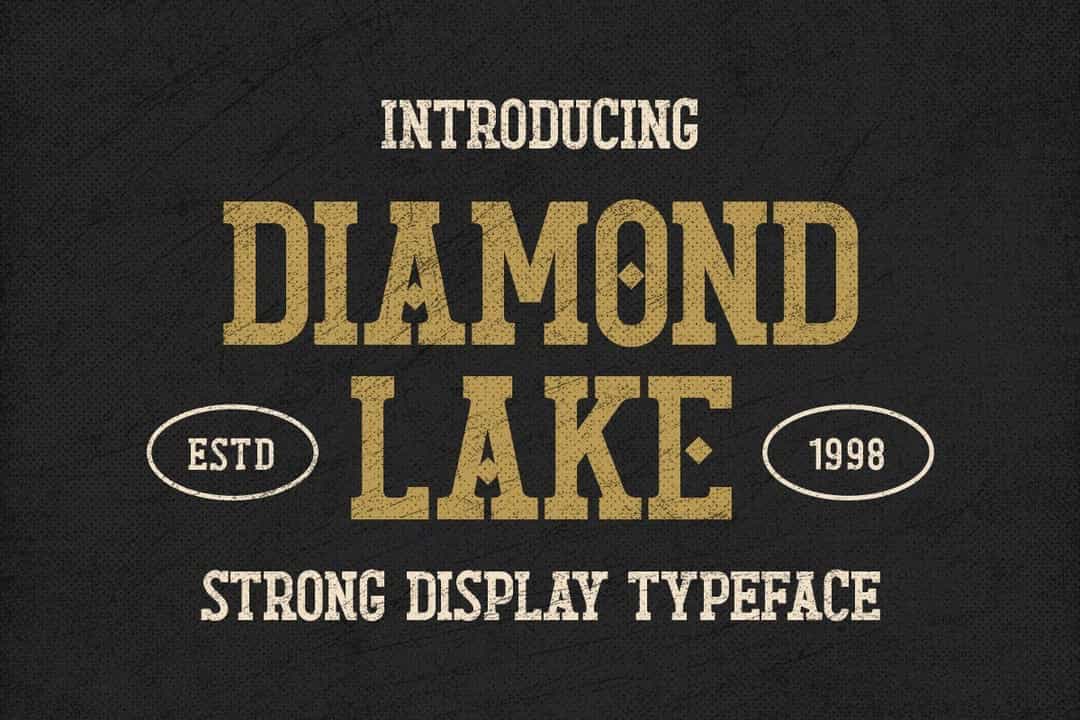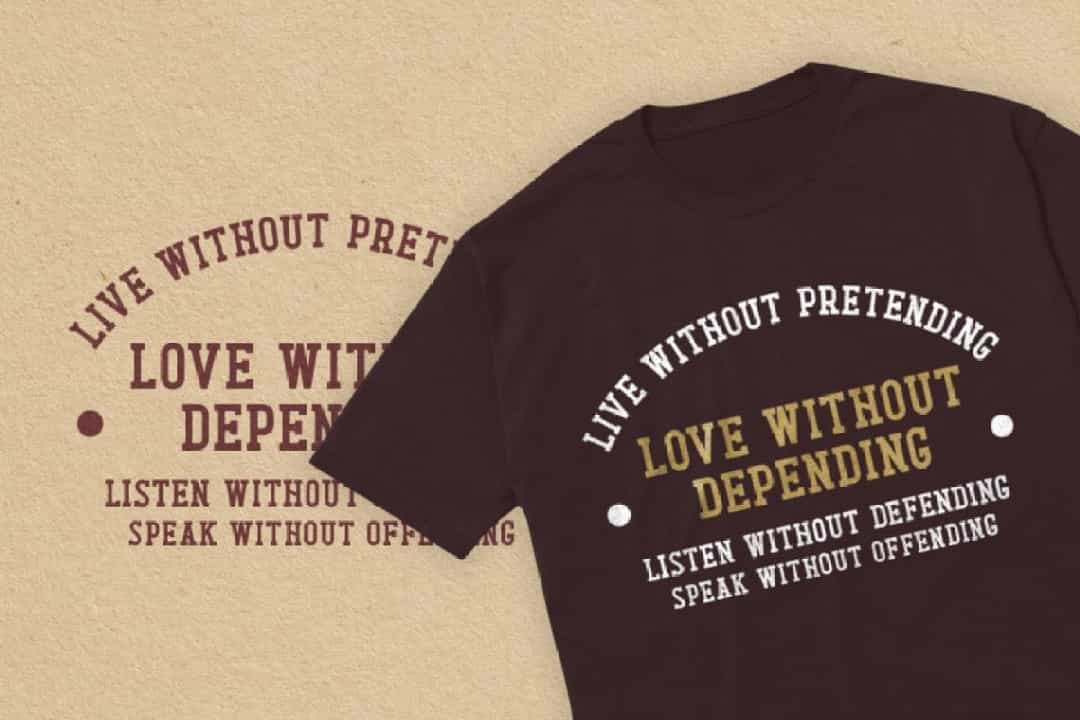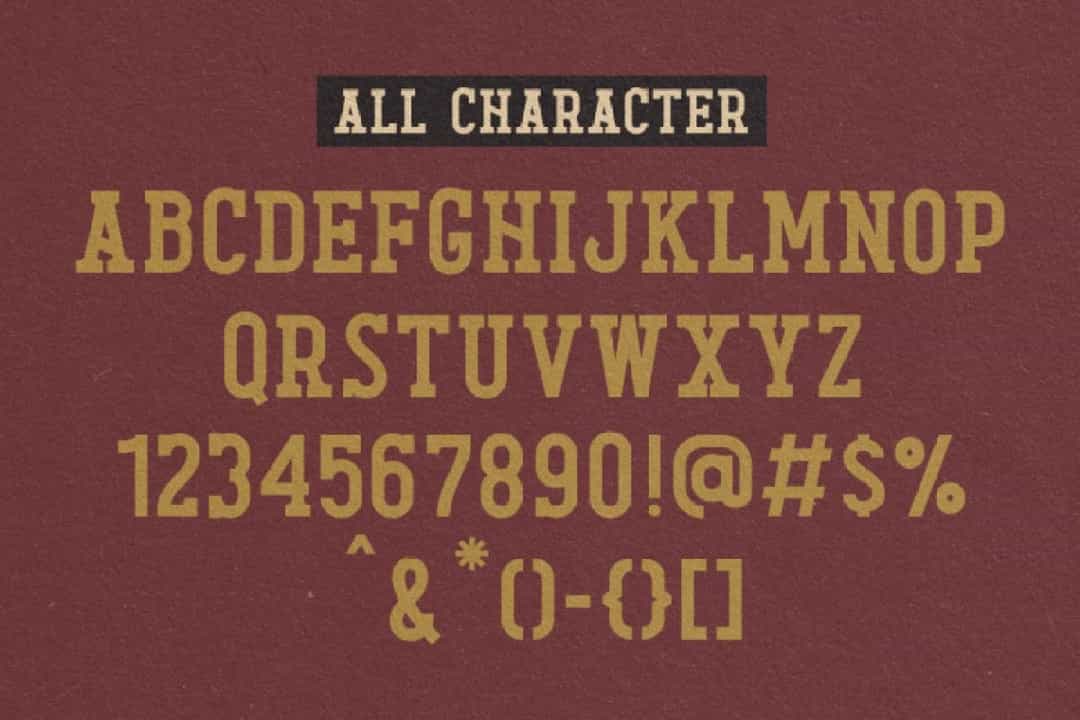
Diamond Lake display typeface! This font stands out from others by having unique and striking characteristics that set your design apart. Perfect for headlines, magazines packaging, branding badges, logotypes and much more.